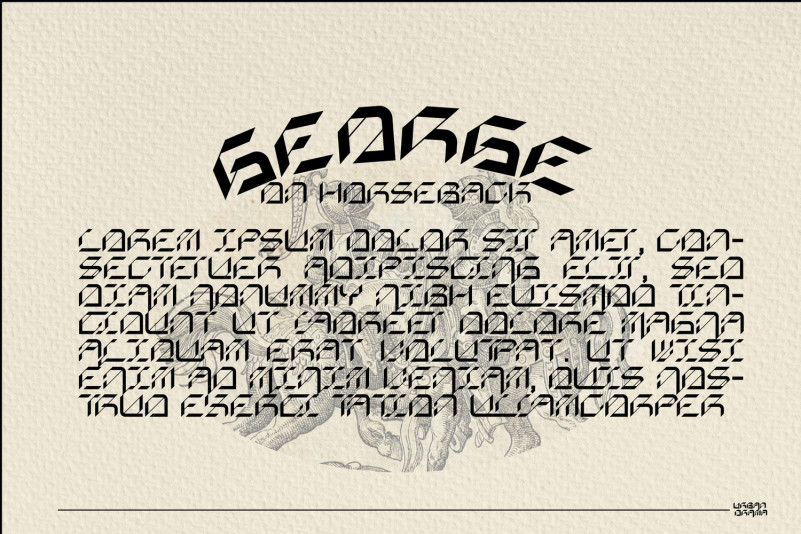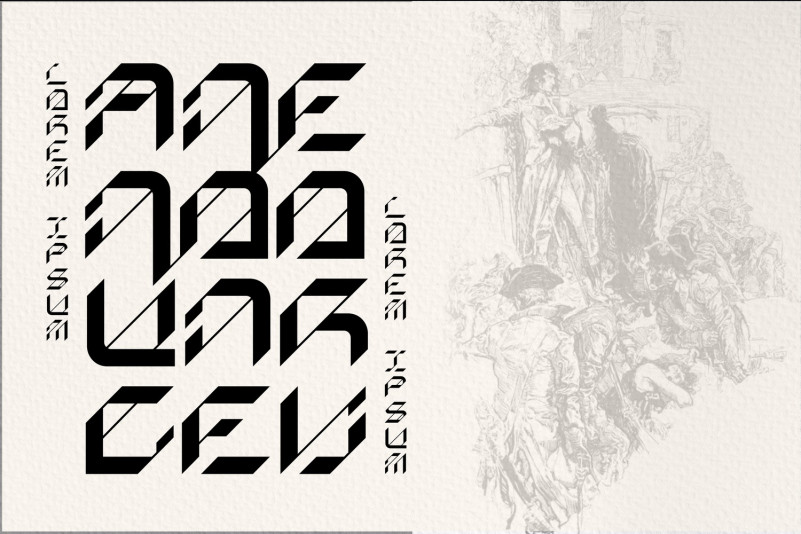
Urban Drama Font
Urban Drama Display Font has a modern font, futuristic font, geometrical and unique design concept. It’s a multipurpose typeface that gives a futuristic and modern impression. This font is suitable for various purposes such as for brands, logos, poster, apparel, and more.
To make it look more unique, here we prepared some ligatures:
AE AB AD AF AG AH AK AL AM AN AO AP AQ AR CA CI CM CN EA EI ET FA FT GA GI GT HE HB HD HF HG HH HK HL HM HN HO HP HQ HR II IT KA KE KG KH KI KO LA MA ME MG MH MI MO NA NE NG NH NI NO QA QI QL TI TT UA UI UL